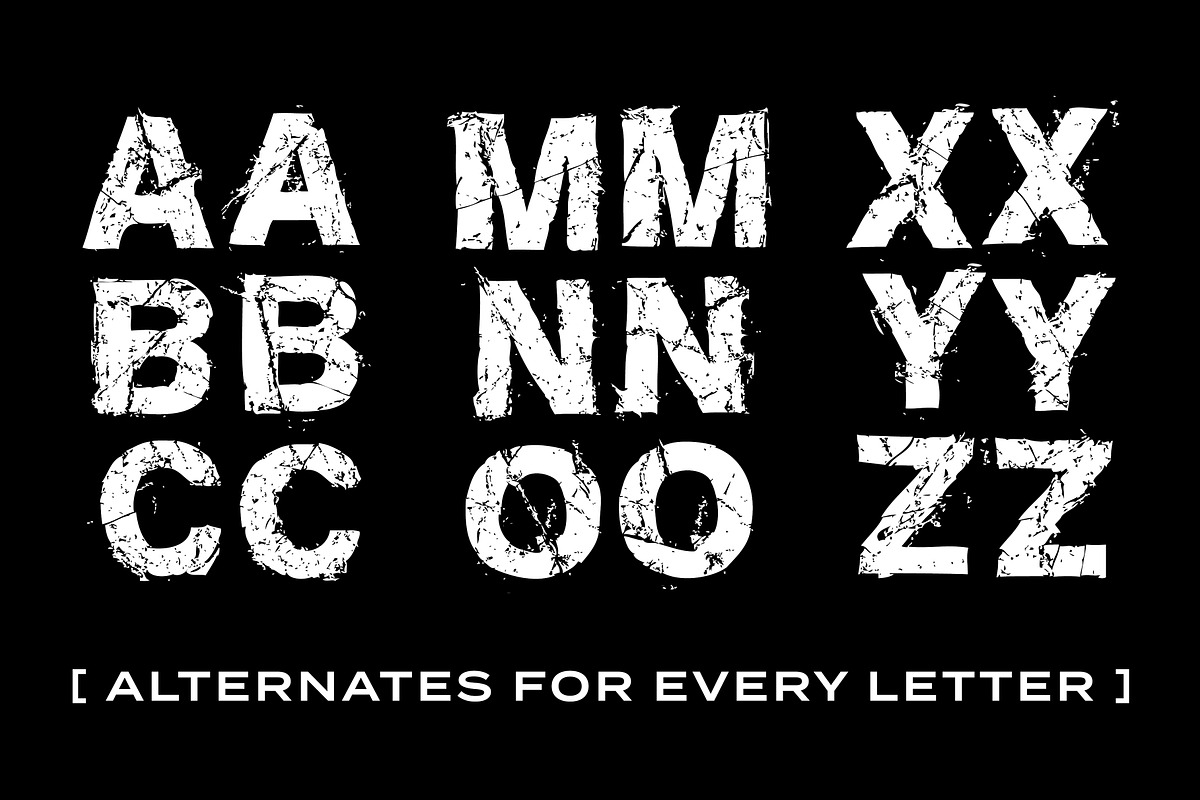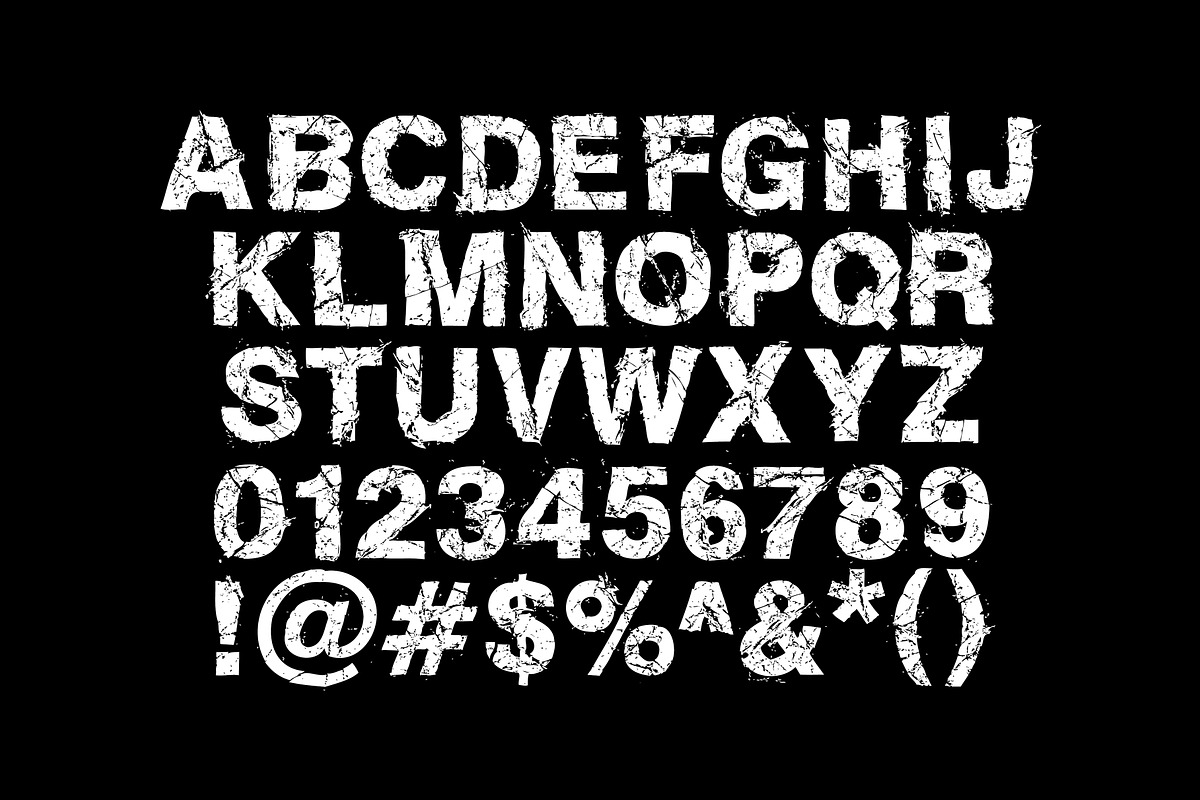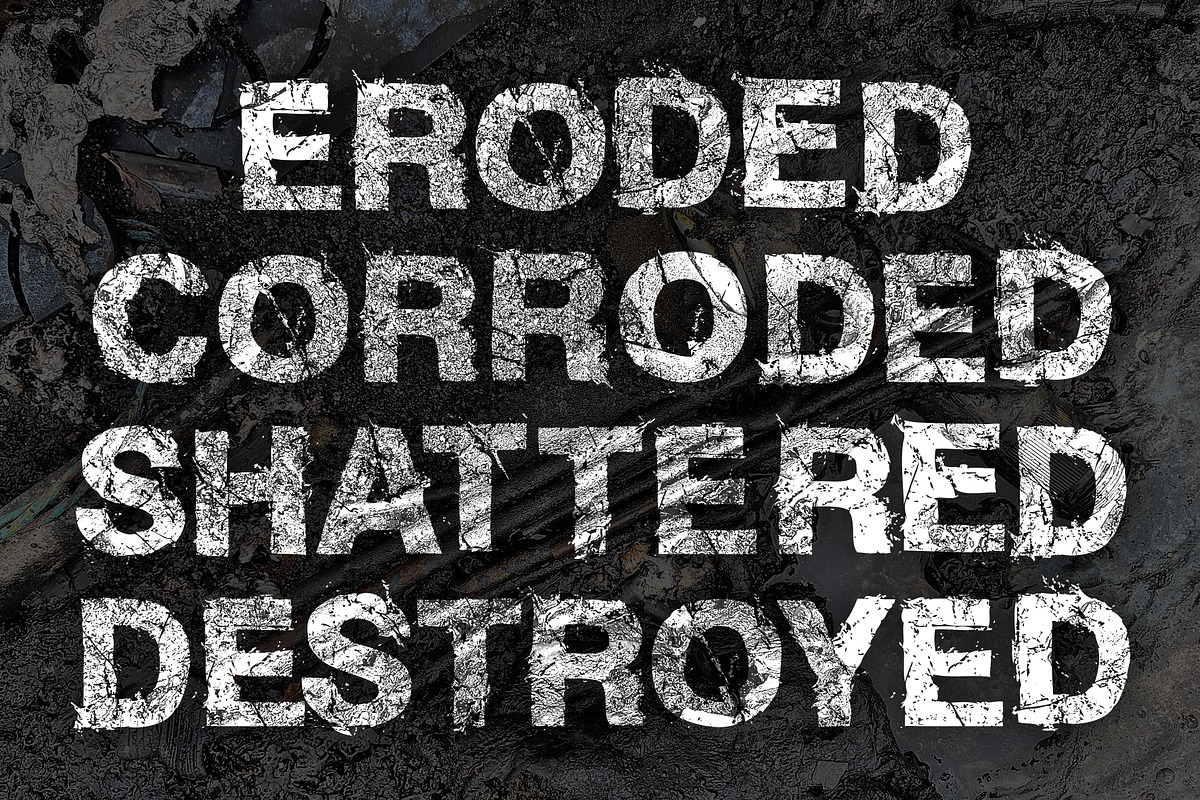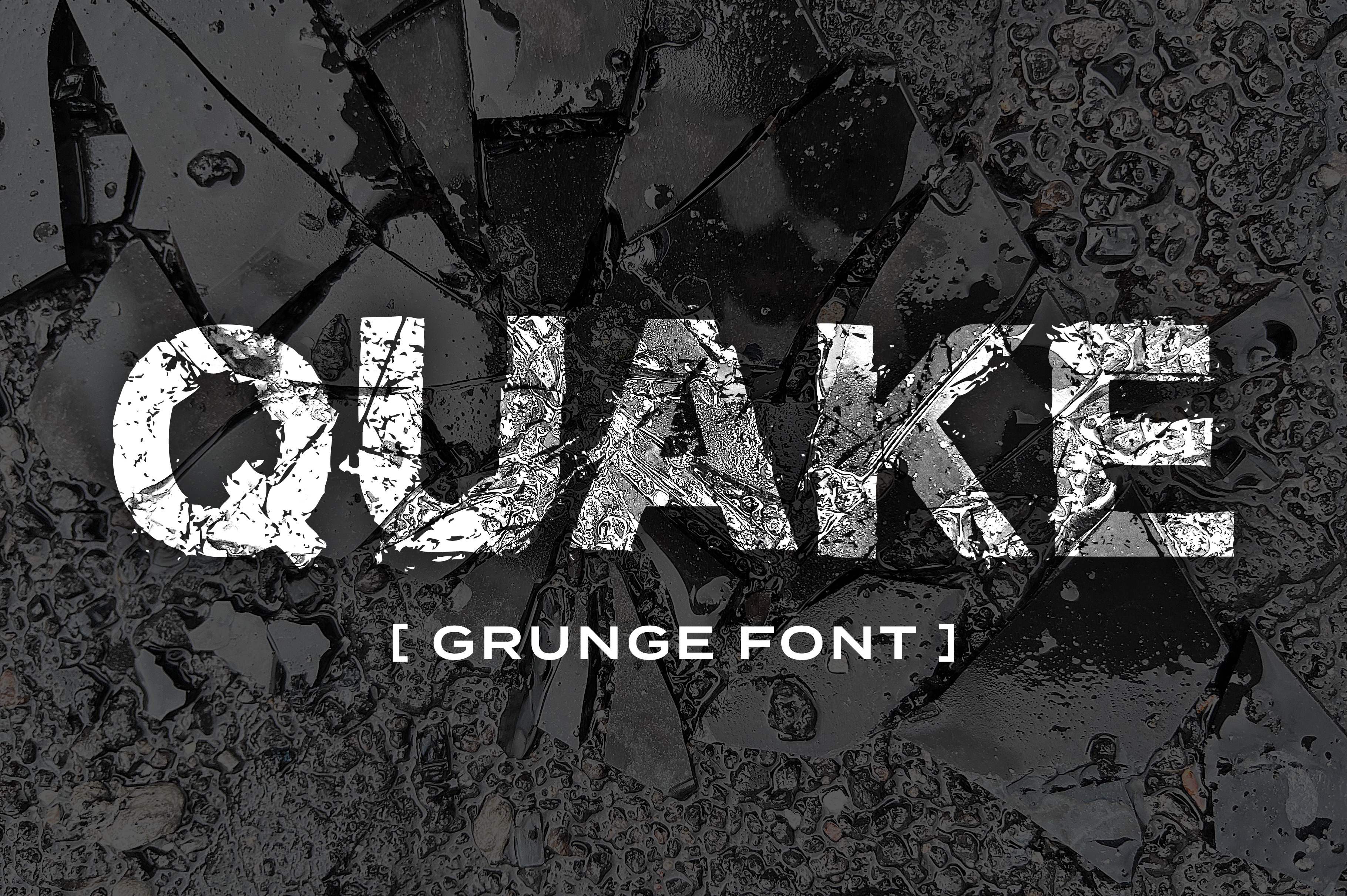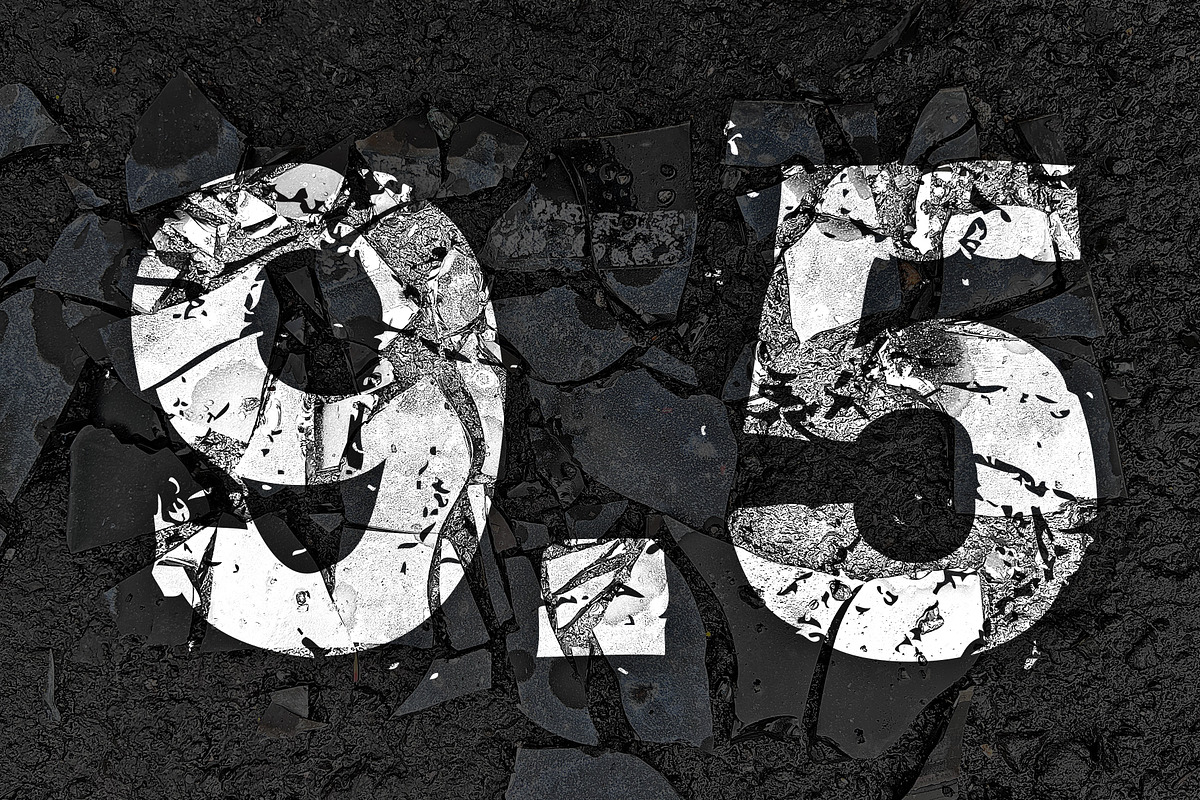
Quake - All Caps Grunge Font
Quake is an all-caps grungy display font with a range of punctuation and numerals. Alternates are available for the most common characters. TTF, OTF, EOT, WOFF & WOFF2 formats are included.